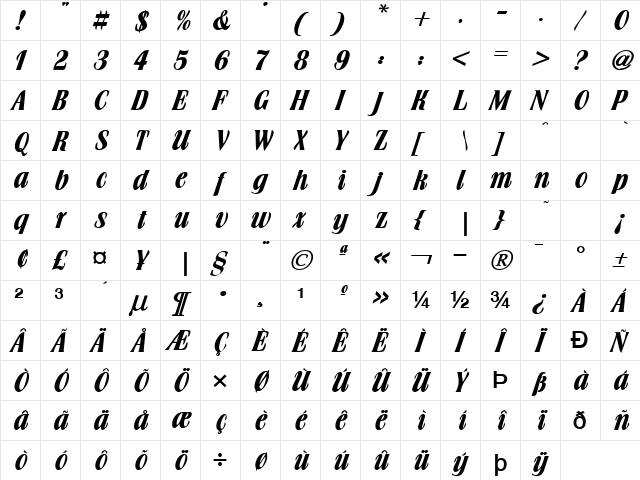
Broach BoldItalic
Design Context for Broach Typeface
Broach offers clean, dependable letterforms without strong stylistic allegiance, making it a practical choice for designers who need flexibility. The dynamic lean of this cut emphasises speed and emphasis in any layout. The heavy weight commands attention and anchors typographic hierarchies.
Pro Tip: Use Broach for emphasis, pull quotes, and subheadings where its slanted energy can add rhythm to the layout.